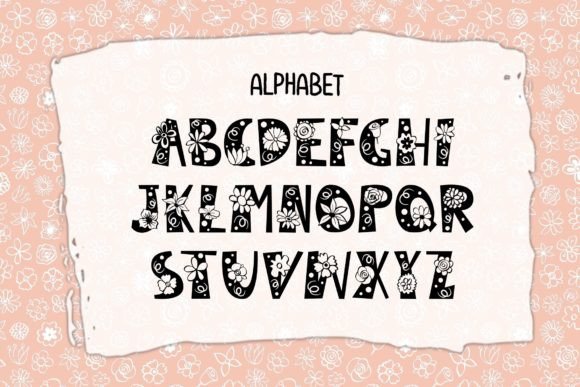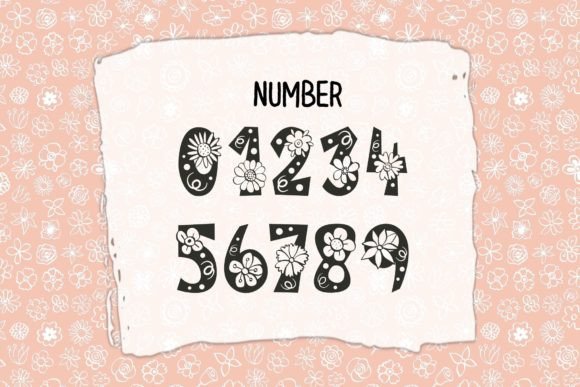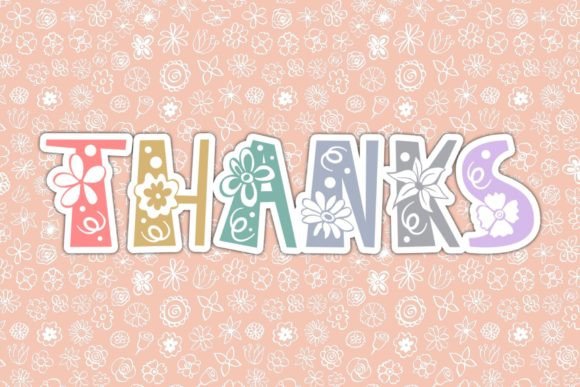
Introducing Flowers Bloom Font: The Perfect Decorative Font for Your Creative Projects
Are you a designer, crafter, or DIY enthusiast looking for a beautiful and unique font to elevate your creative projects? Look no further than Flowers Bloom Font! This lovely decorative font is perfect for adding a touch of elegance and whimsy to your logos, branding, social media, crafty DIY projects, and more.
What is Flowers Bloom Font?
Flowers Bloom Font is a carefully crafted decorative font that features intricate and beautiful floral designs. Each letter is meticulously designed to resemble flowers, leaves, and stems, creating a charming and eye-catching effect. This font is perfect for anyone who loves nature, gardening, or simply wants to add a touch of sweetness to their designs.
Features of Flowers Bloom Font
- Unique and Whimsical Design: Flowers Bloom Font features a one-of-a-kind design that is sure to make your projects stand out. The intricate floral patterns and delicate lines create a charming and eye-catching effect.
- Perfect for Decorative Projects: This font is ideal for a wide range of decorative projects, including logos, branding, social media graphics, crafty DIY projects, and more.
- Easily Customizable: Flowers Bloom Font is easy to customize, allowing you to adjust the font size, color, and style to suit your needs.
Uses of Flowers Bloom Font
Flowers Bloom Font is a versatile font that can be used for a wide range of projects, including:
- Logos and Branding: Create a beautiful and memorable logo for your business or brand with Flowers Bloom Font.
- Social Media Graphics: Add a touch of elegance and sophistication to your social media graphics, including Facebook posts, Instagram stories, and Twitter headers.
- Crafty DIY Projects: Use Flowers Bloom Font to create beautiful and unique craft projects, such as handmade cards, gift tags, and scrapbook pages.
- Wedding and Event Decorations: This font is perfect for creating beautiful wedding and event decorations, including invitations, programs, and signage.
Tips for Using Flowers Bloom Font
Here are some tips for getting the most out of Flowers Bloom Font:
- Use it Sparingly: While Flowers Bloom Font is beautiful, it can be overwhelming if used excessively. Use it sparingly to create a focal point in your design.
- Pair it with Simple Fonts: Pair Flowers Bloom Font with simple fonts to create a beautiful contrast and add visual interest to your design.
- Experiment with Colors: Try out different colors and combinations to find the perfect look for your project.